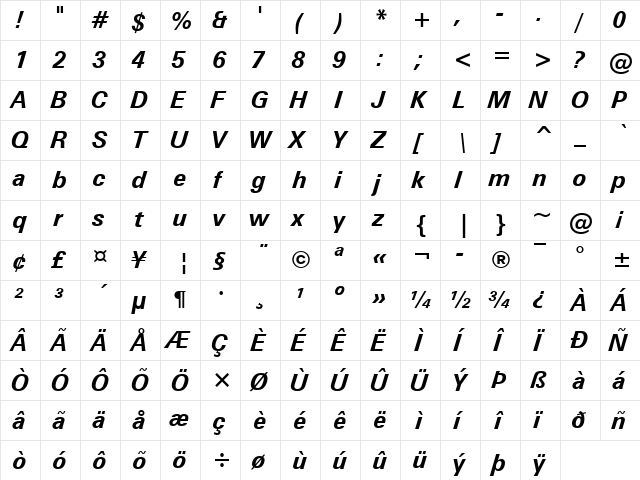
Zurich Win95BT Bold Italic Font Preview
Design Context for Zurich Win95BT Typeface
Zurich Win95BT offers clean, dependable letterforms without strong stylistic allegiance, making it a practical choice for designers who need flexibility. The slanted form adds forward momentum and visual energy. The heavy weight commands attention and anchors typographic hierarchies.
Pro Tip: Try Zurich Win95BT for annotation and caption copy alongside an upright companion — the contrast in angle creates a dynamic but ordered typographic system.